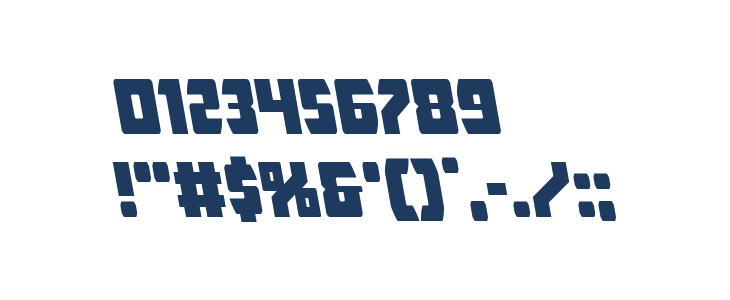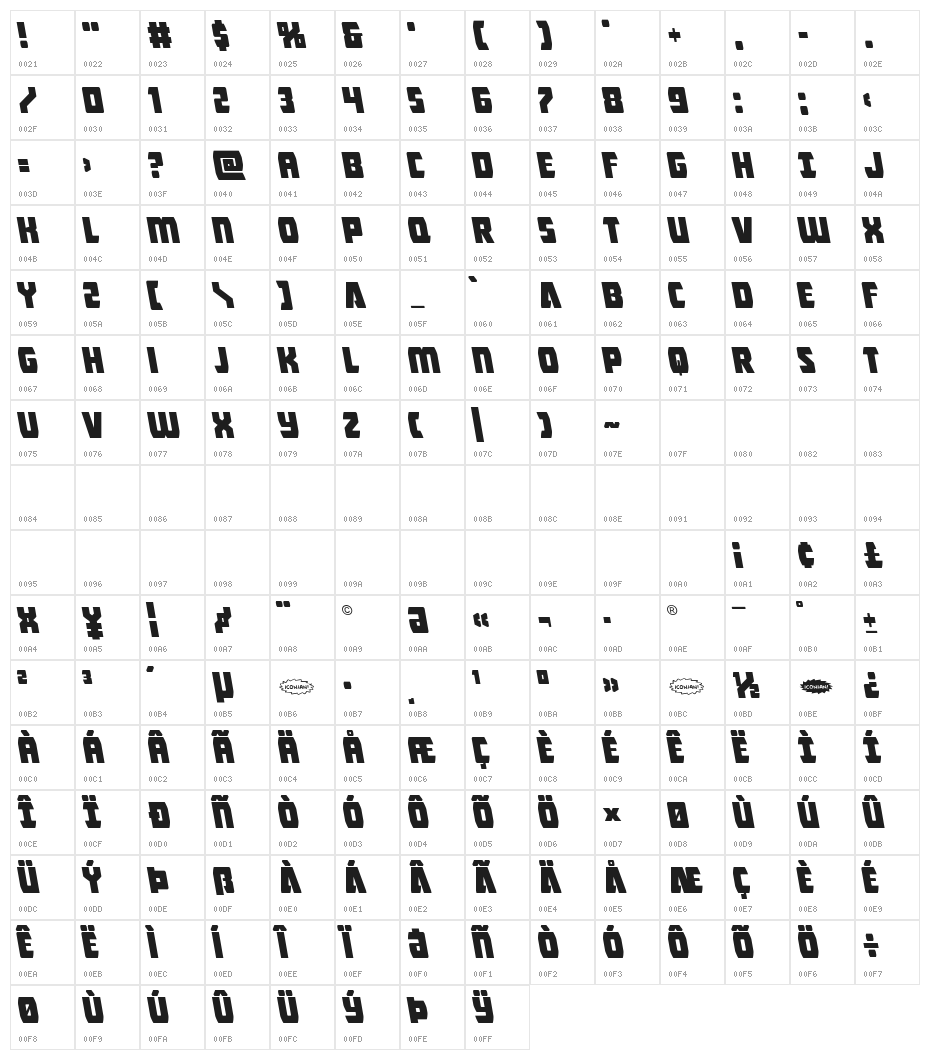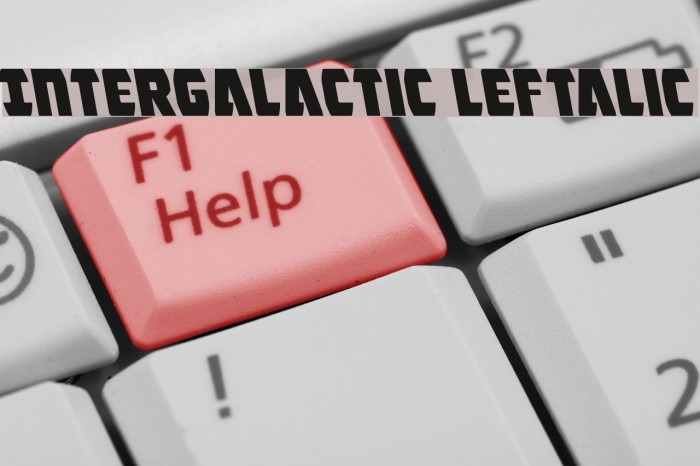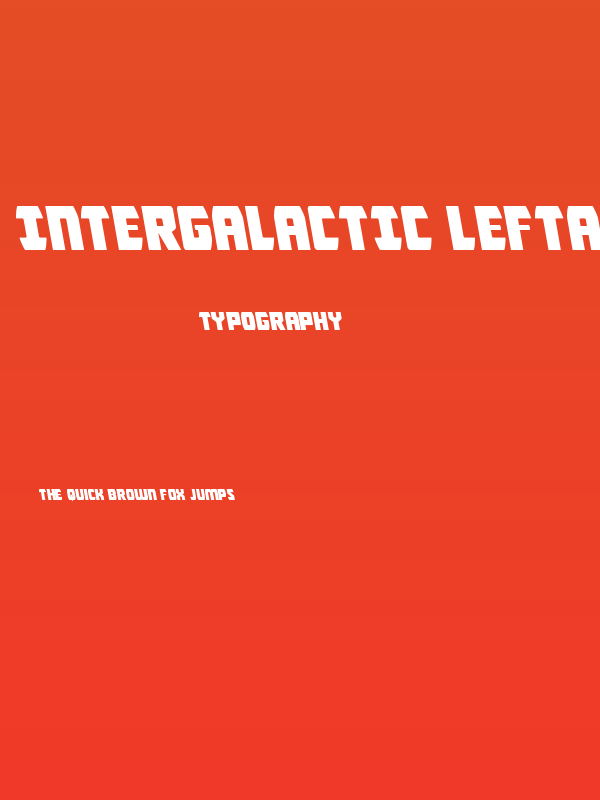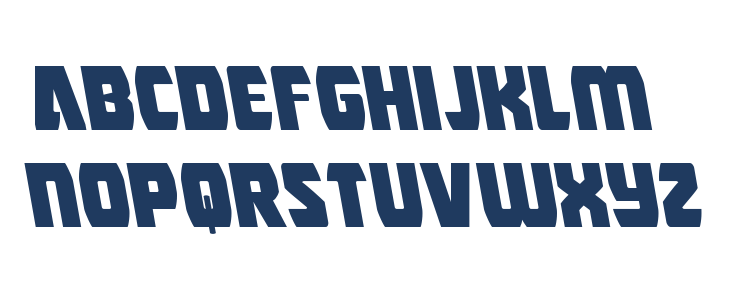
Intergalactic Leftalic Font
Intergalactic Leftalic Description
This font features a bold, futuristic design with a distinct leftward slant, giving it a dynamic and forward-moving appearance. The characters are blocky and geometric, with sharp angles and a strong presence. The uppercase and lowercase letters maintain a consistent style, while the numbers and special characters complement the overall aesthetic. The font's unique style makes it stand out, ideal for projects that require a modern and edgy look.
| Proposed Projects | Ideal for sci-fi themed posters, video game titles, and tech branding. |